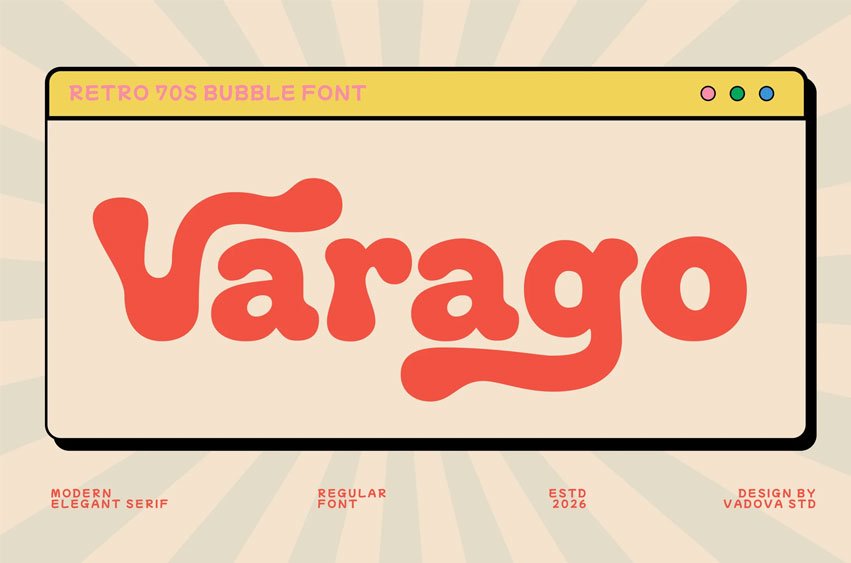
Varago Font is a retro 70s bubble display font designed to bring a groovy, nostalgic vibe into modern creative projects. Inspired by vintage typography from the 1970s, this typeface features bold rounded shapes, playful curves, and soft bubbly forms that instantly create a cheerful retro atmosphere. The chunky letterforms and smooth flowing strokes give Varago a strong visual personality, making it perfect for bold headlines, vintage posters, and expressive branding.
Relevance and Uses Cases Varago is designed for creative projects that need a bold retro personality and nostalgic visual style. It works perfectly for vintage posters, retro branding, merchandise design, music artwork, packaging, social media graphics, and fun editorial layouts.